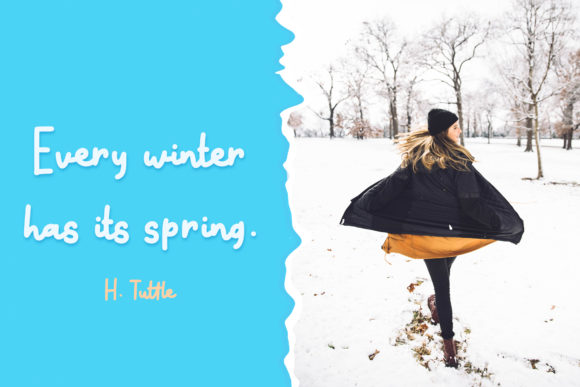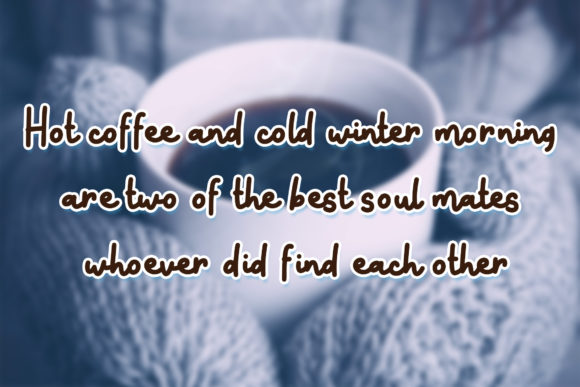
About Snow Doodle Font
Snow Doodle is a cute and dainty display font. It embodies playfulness and authenticity and is the perfect choice for any children activity or school project.